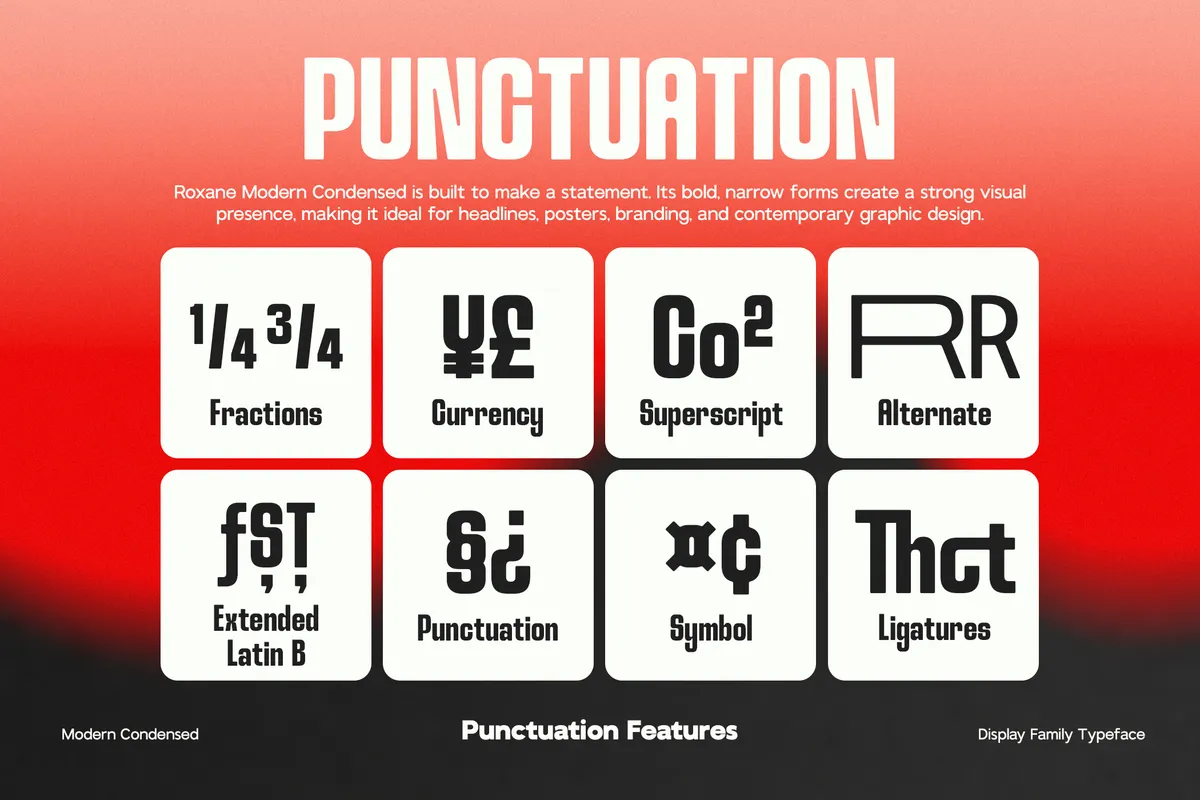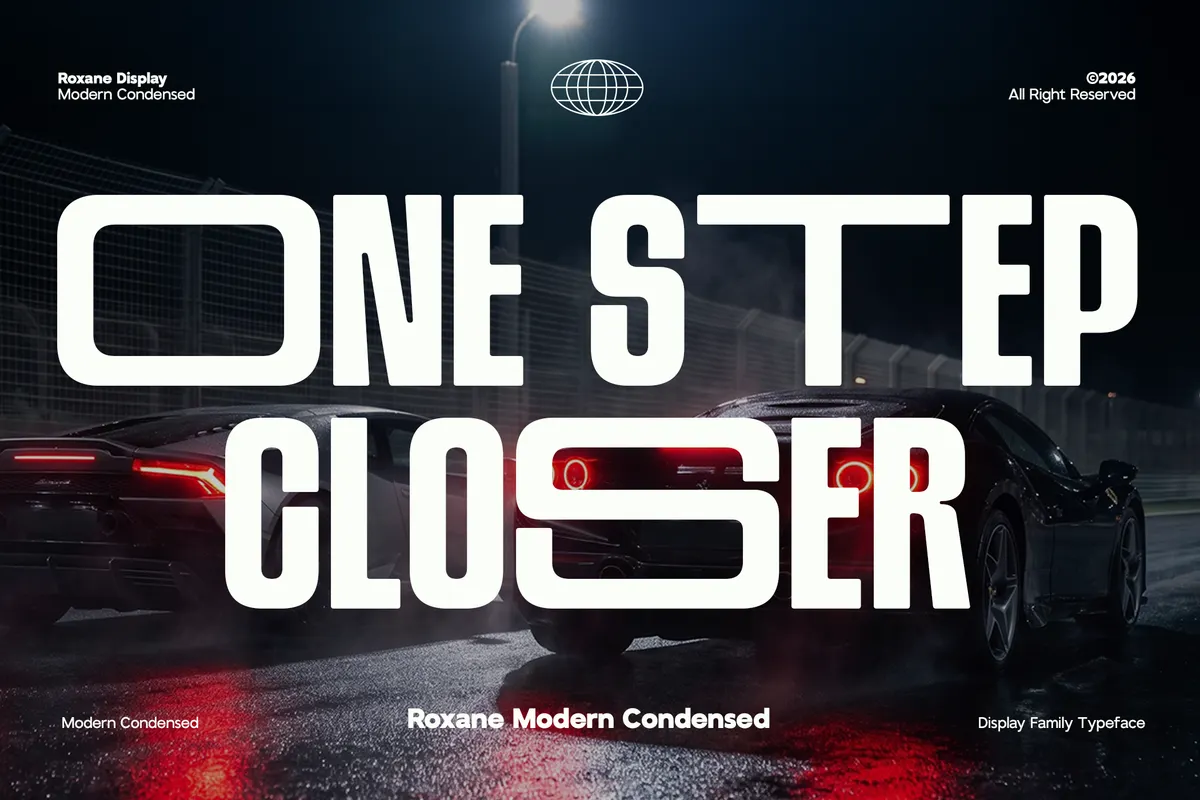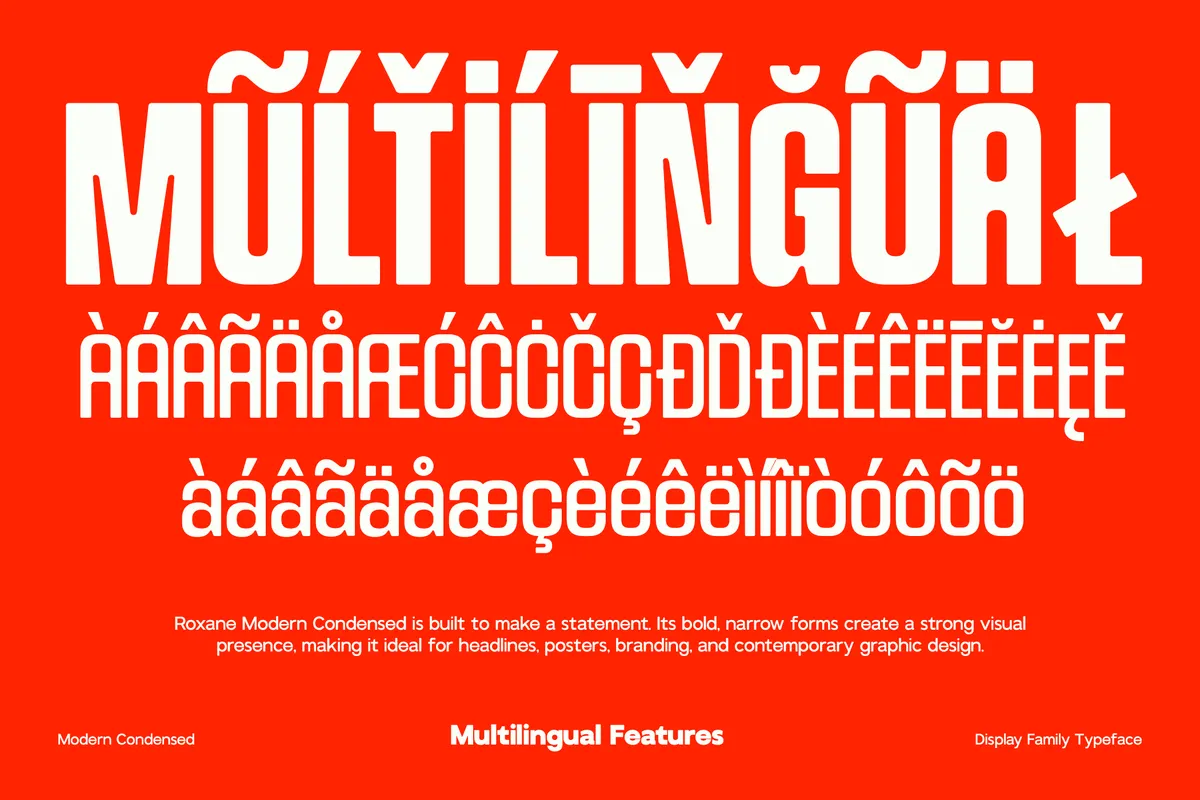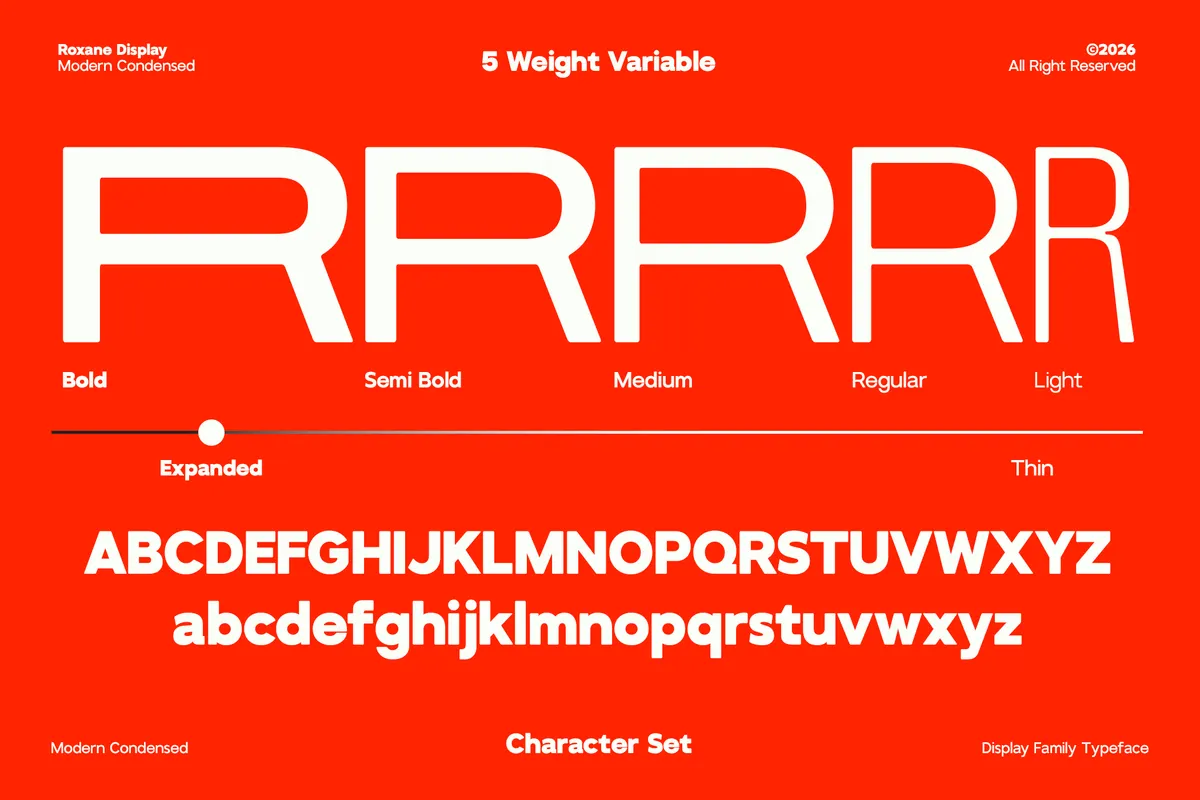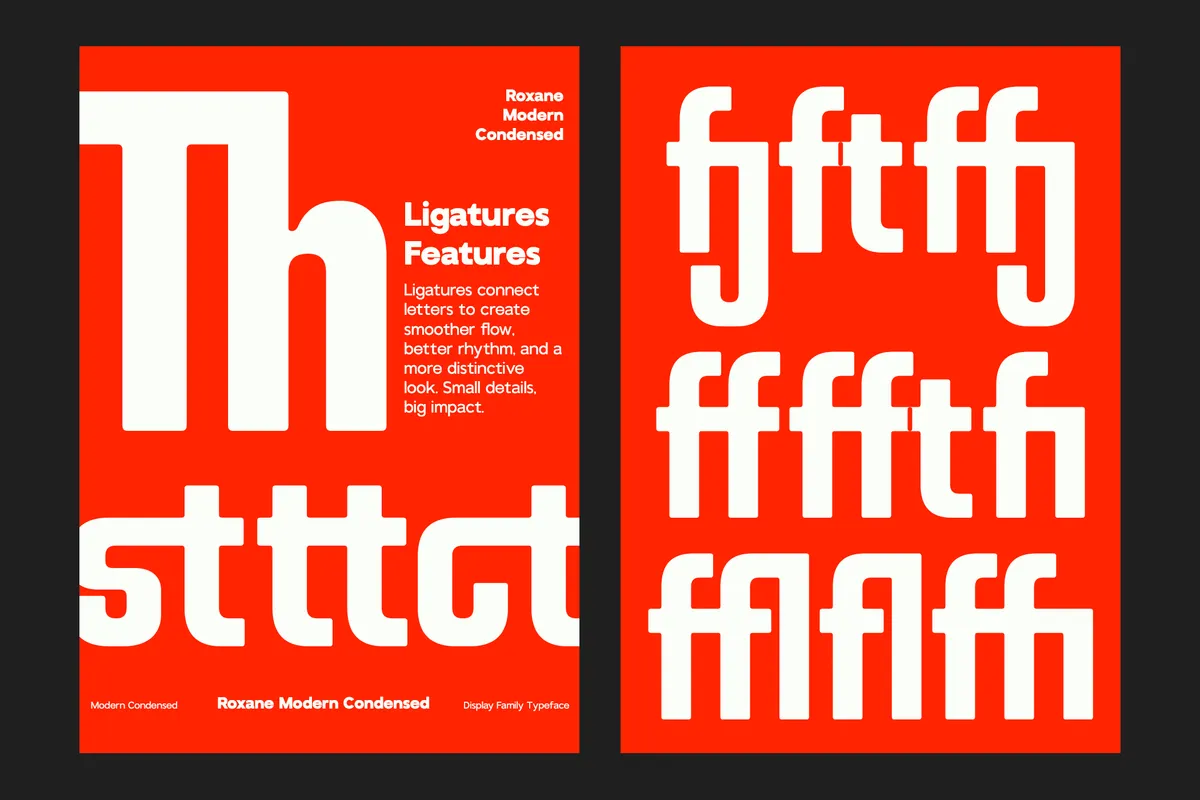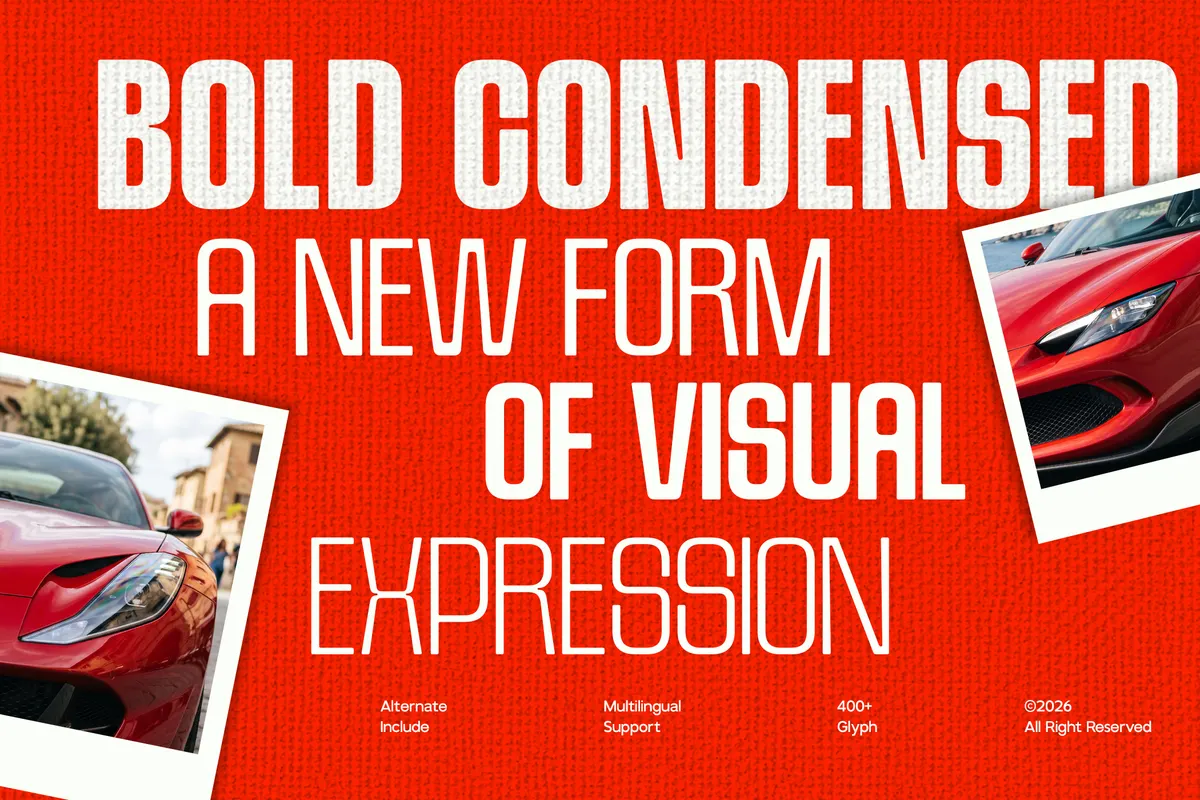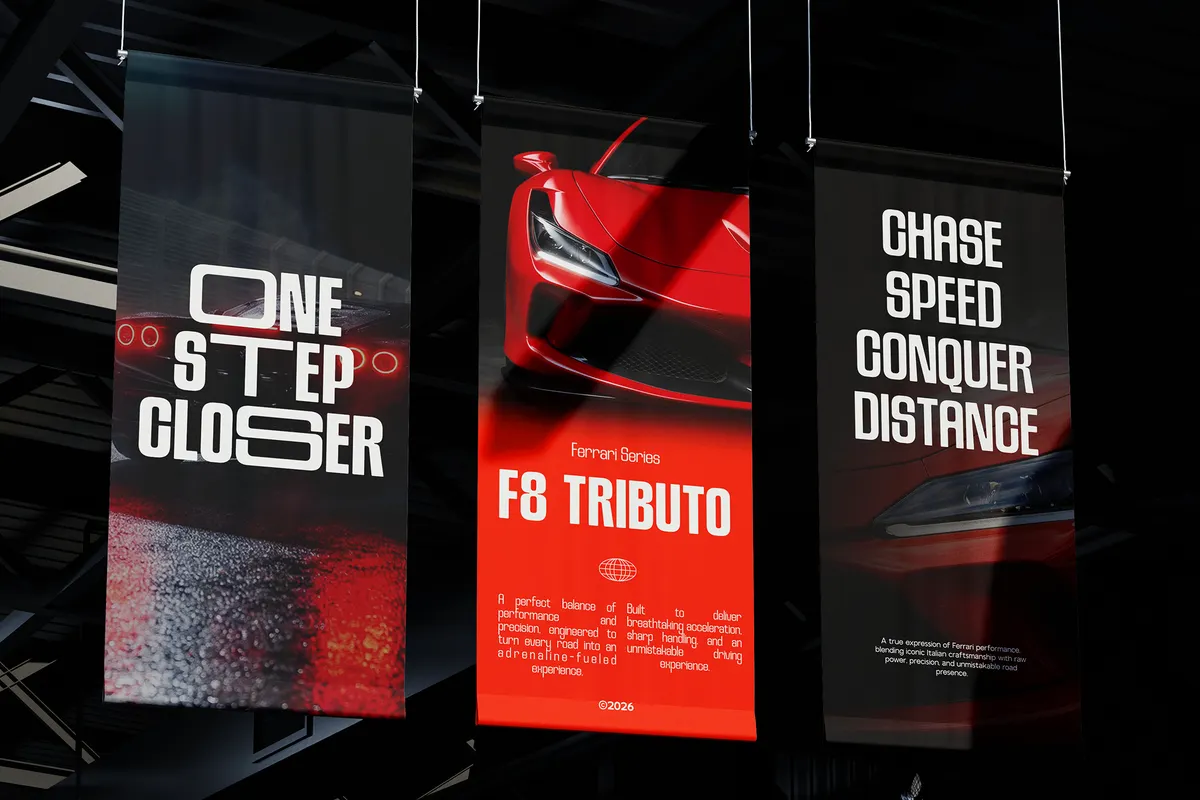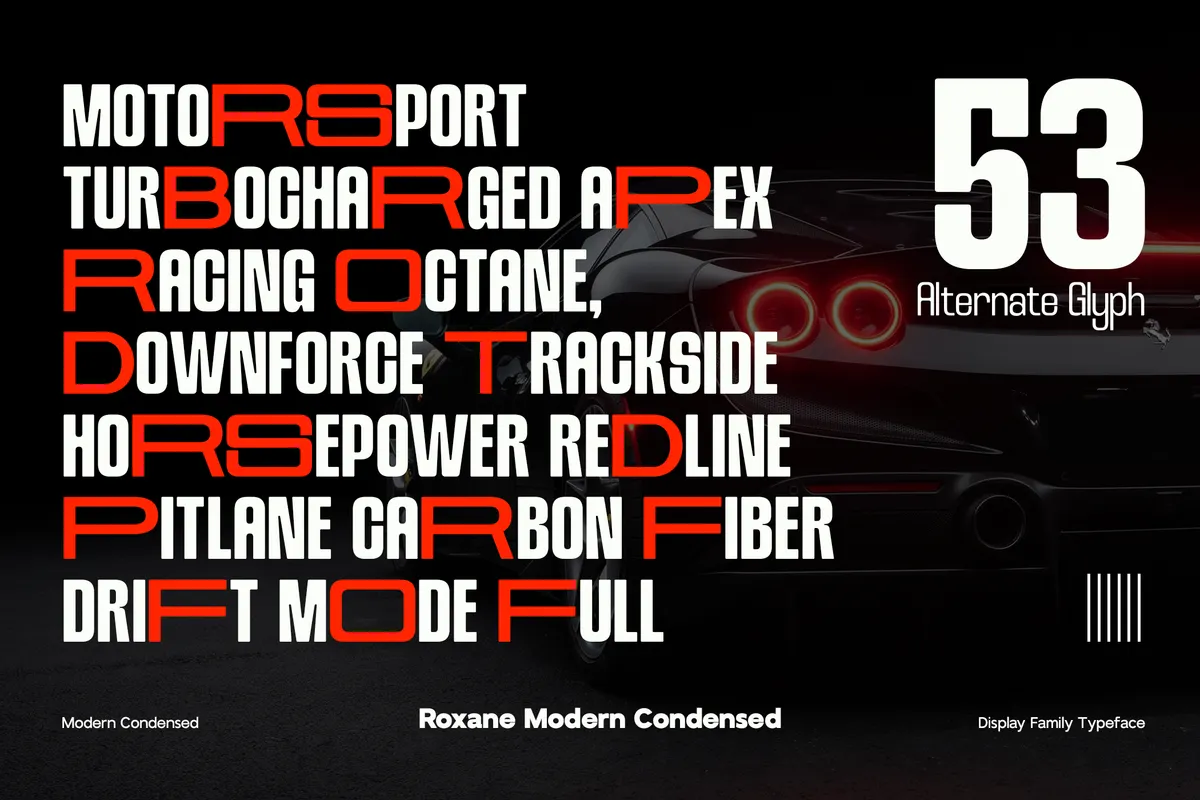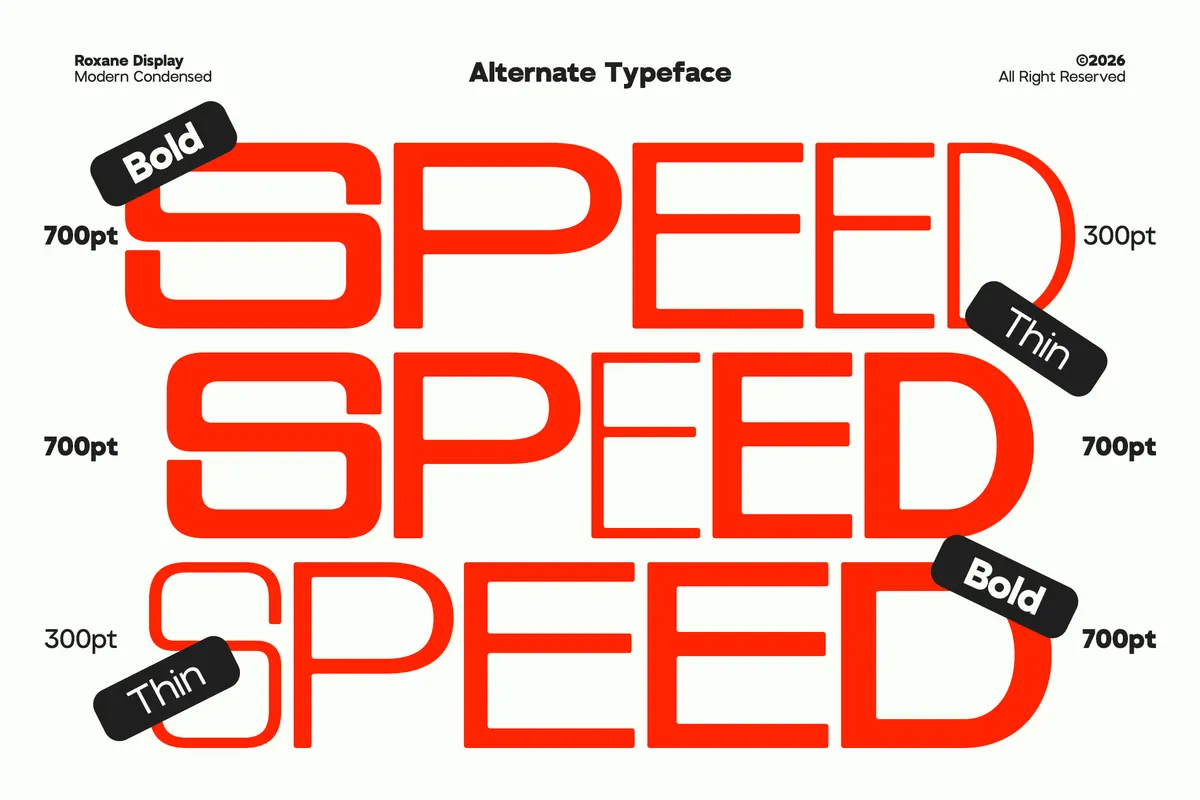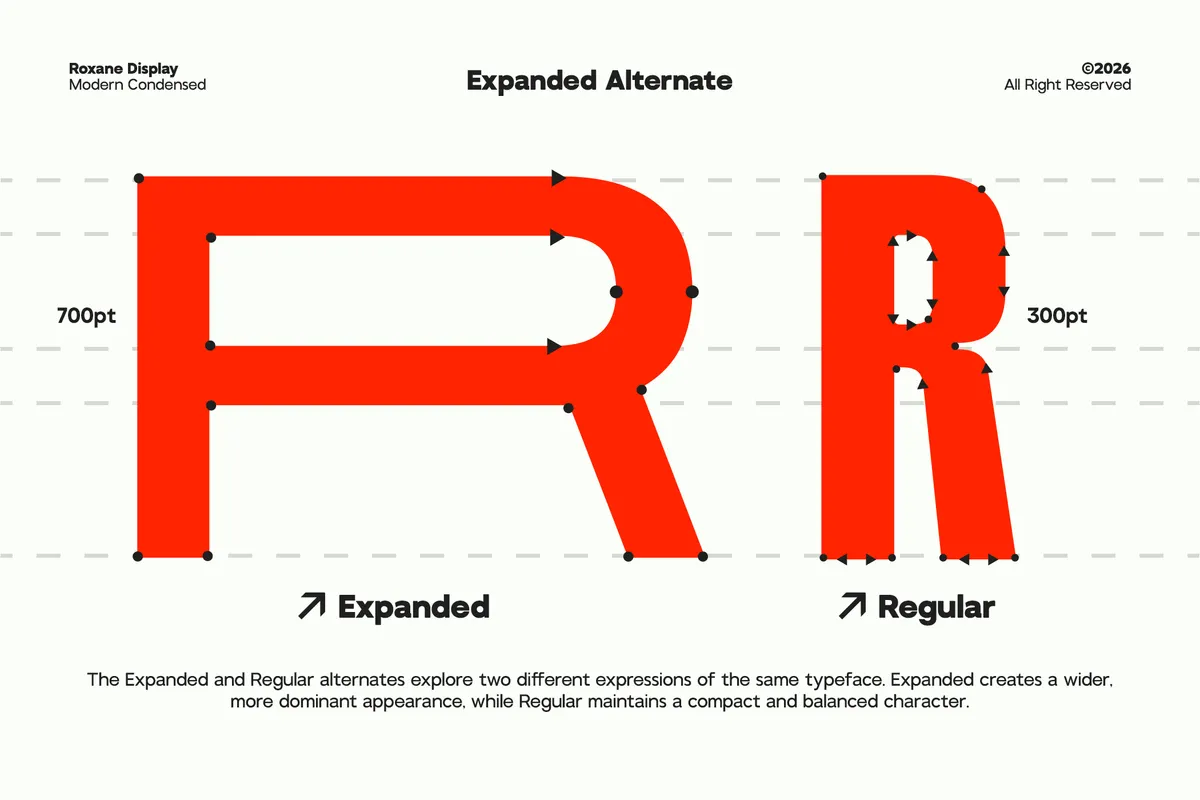
GC Roxane - Tall Condensed Display Font
GC Roxane builds tall, narrow display capitals with softened corners, closer to a motorsport livery than a quiet editorial sans. Five weights move from a soft Light through a solid Bold, and a variable font covers that same range in a single file. Three stylistic alternate sets swap in varied forms for a wide run of capitals, all reachable through the OpenType panel.
Use it for automotive branding, motorsport graphics, fashion campaigns, tech visuals, and bold editorial posters.
- Uppercase & lowercase;
- Numerals, punctuation & symbols;
- 5 weights: Light, Regular, Medium, SemiBold, Bold;
- Variable font covering the full weight range;
- 10 discretionary ligatures, stylistic alternates on select characters, fractions, superscript figures;